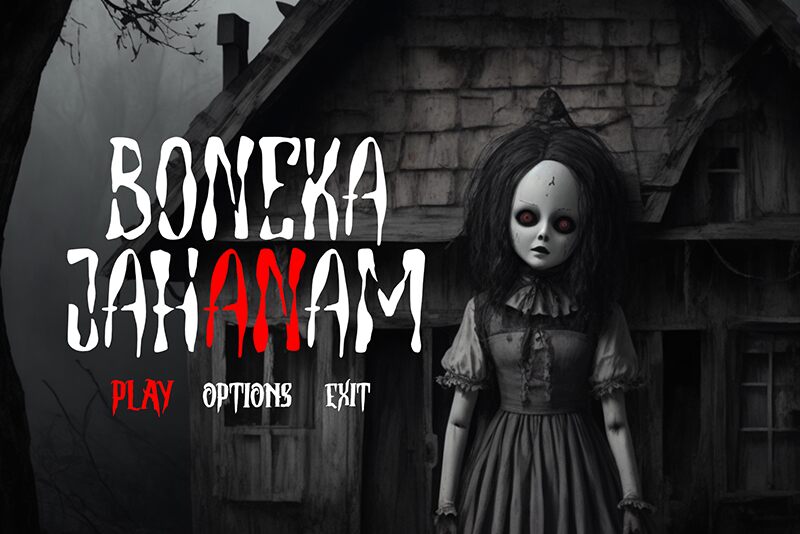
Torment Macabre
Torment Macabre font by Horror Font is a free horror display font. Sinewy and hand-drawn, its ink-blot swells and bony tapers make letters look like they’ve crawled out of a damp basement. The rhythm jitters just enough to feel uneasy while staying readable, so headlines hit like a cold draft under a locked door.
Using Torment Macabre, your titles snap into character: Halloween posters, haunted house signage, thriller book covers, escape room branding, indie game titles, and horror podcast art all gain a clammy, cinematic mood. This free font shines big and bold; add a touch of tracking for smaller sizes. Pair with a clean grotesk or condensed sans to keep body text steady against the chaos.